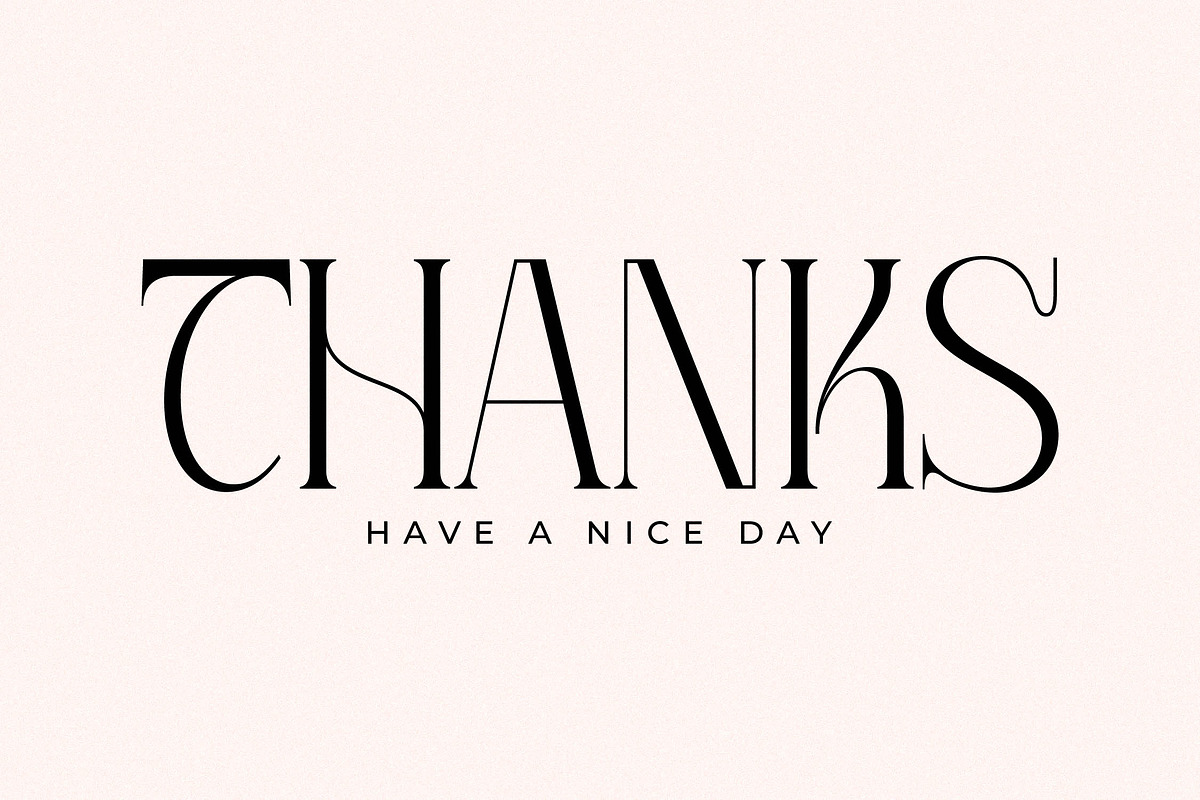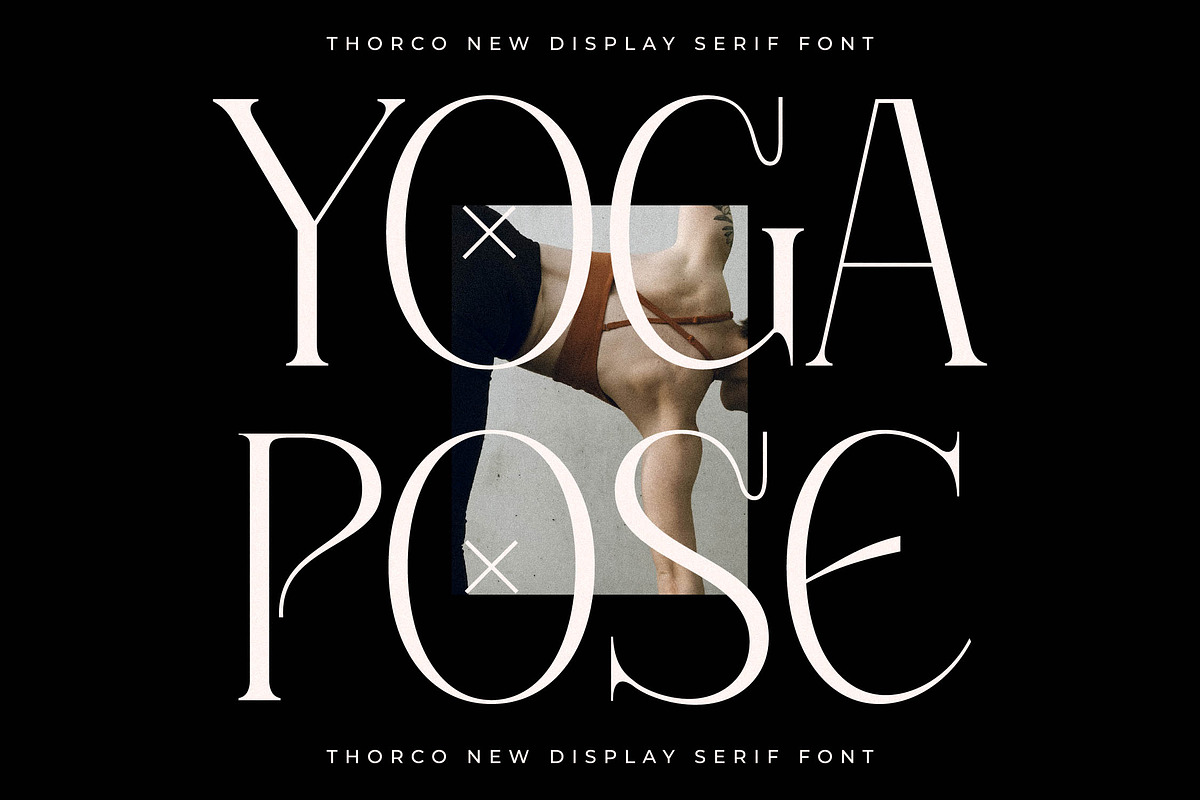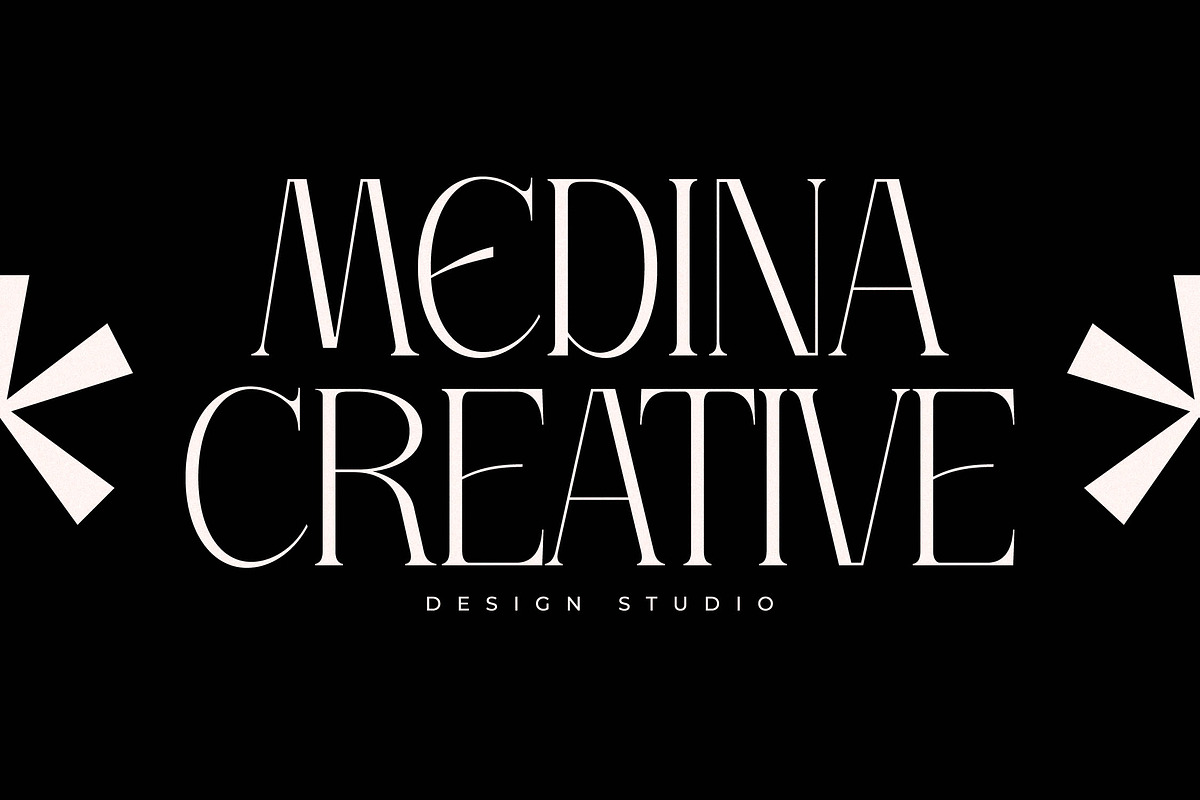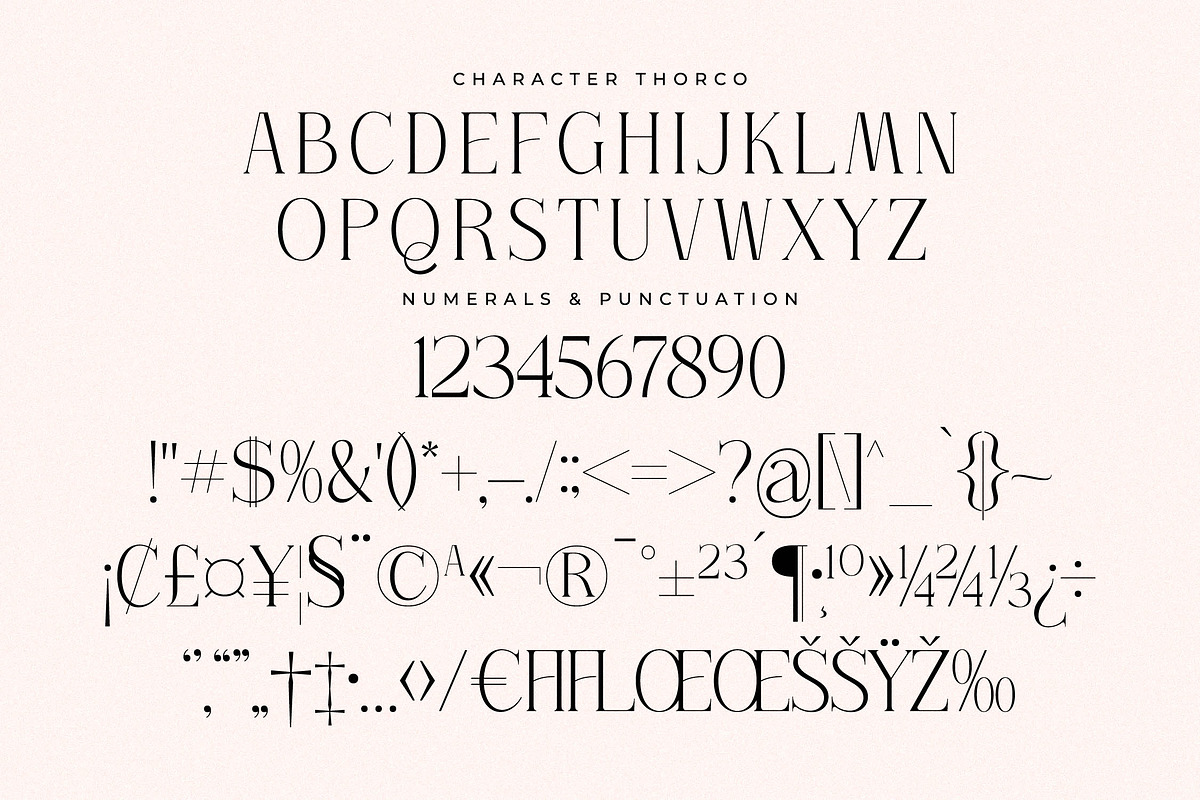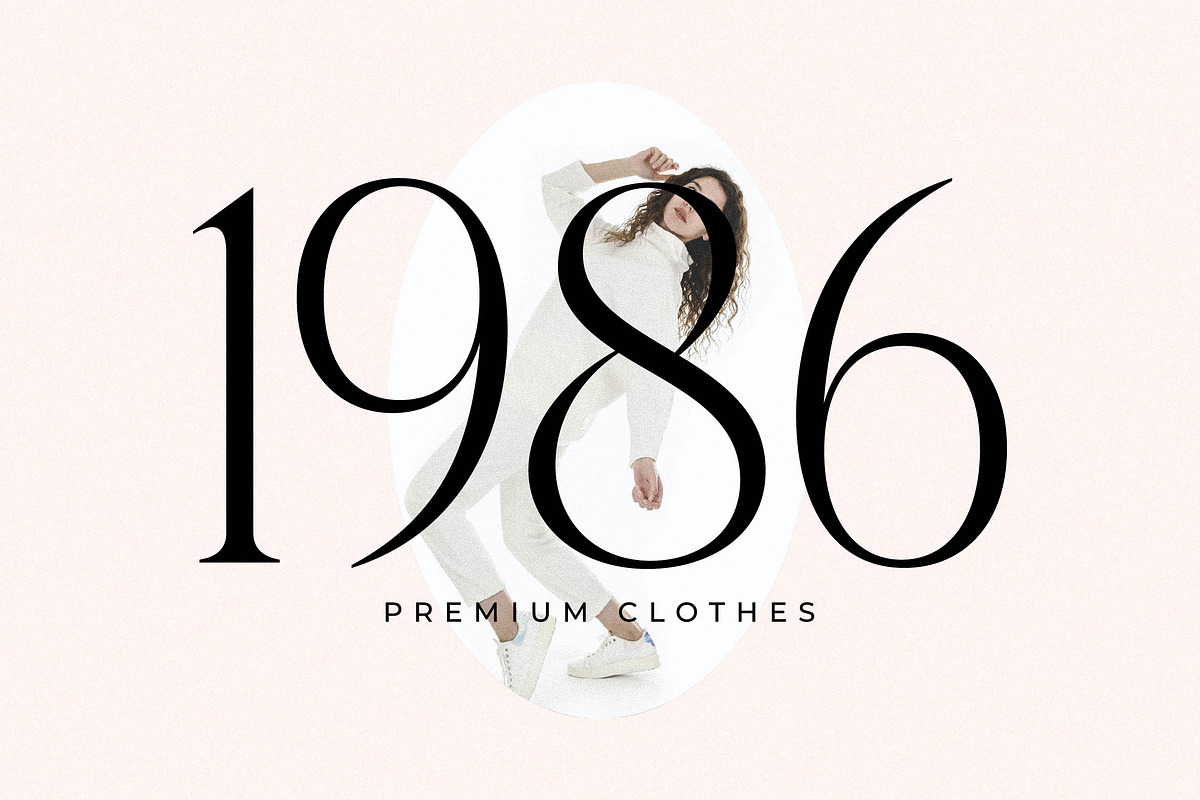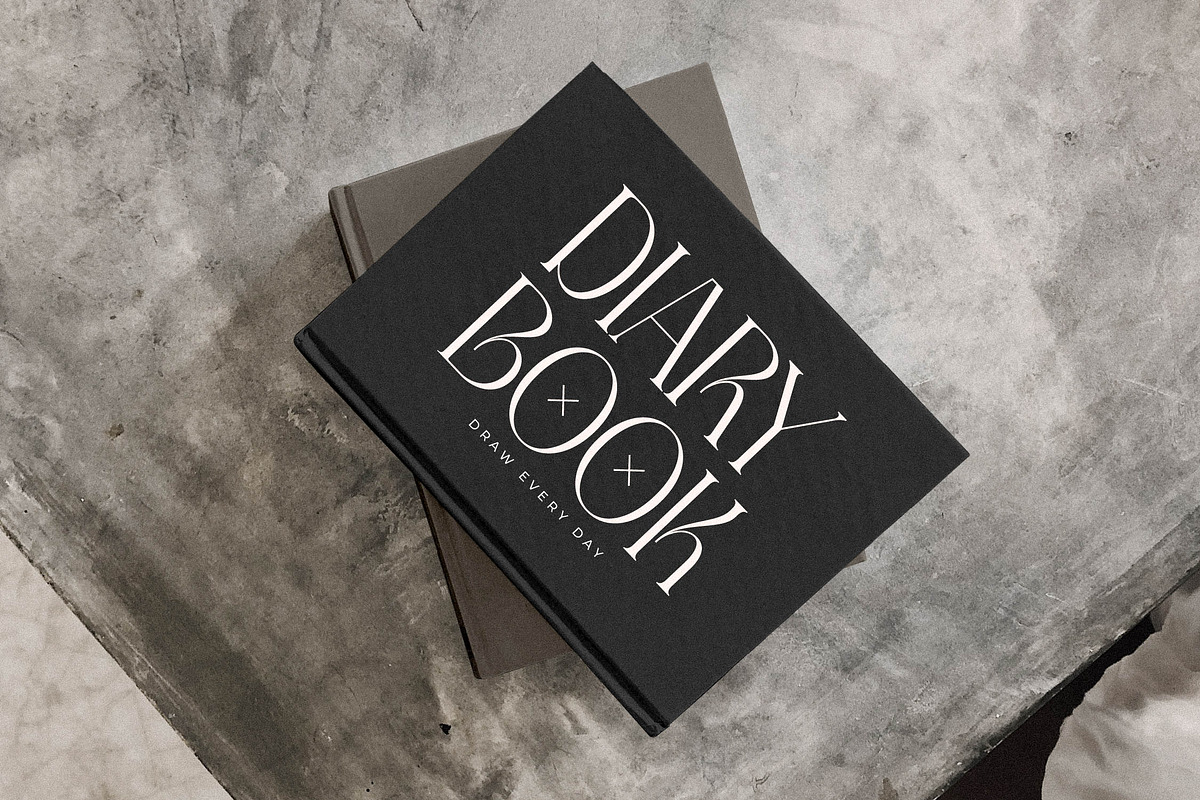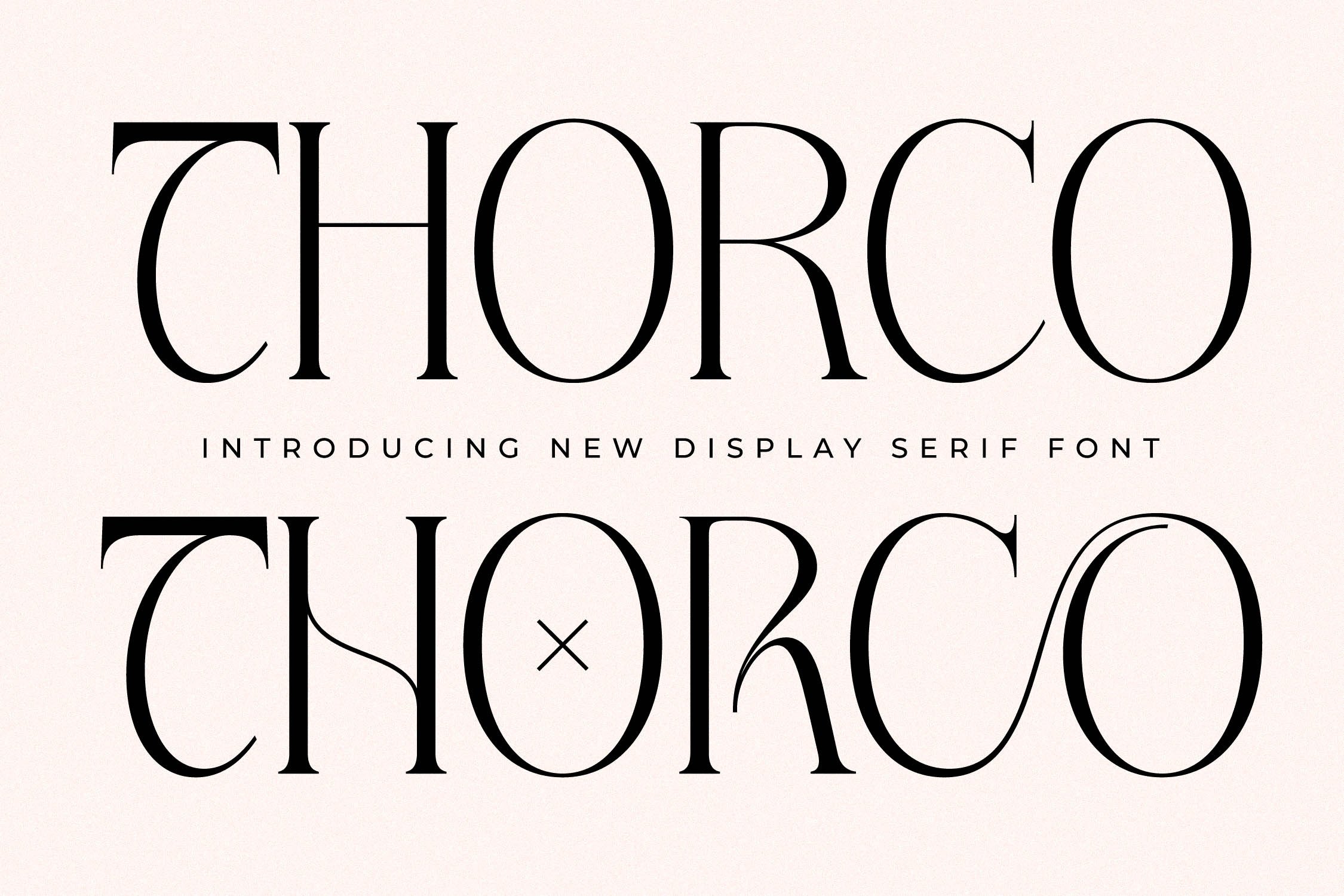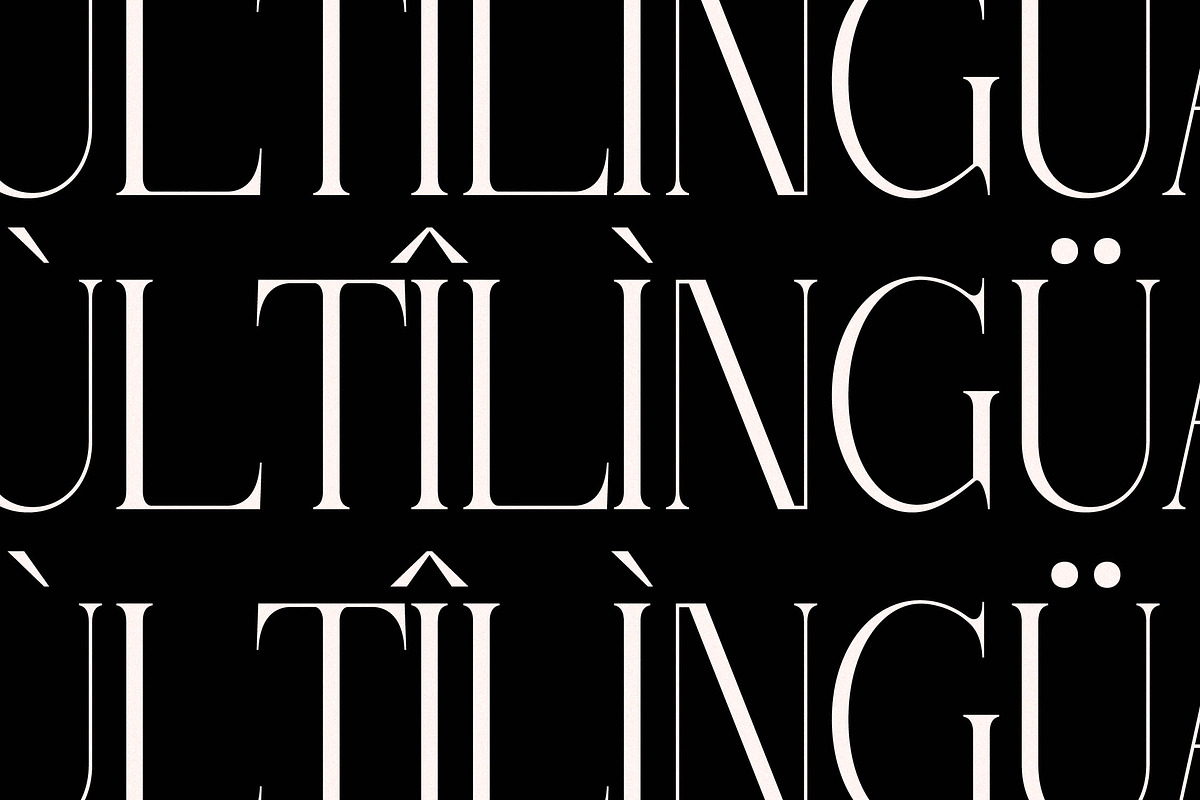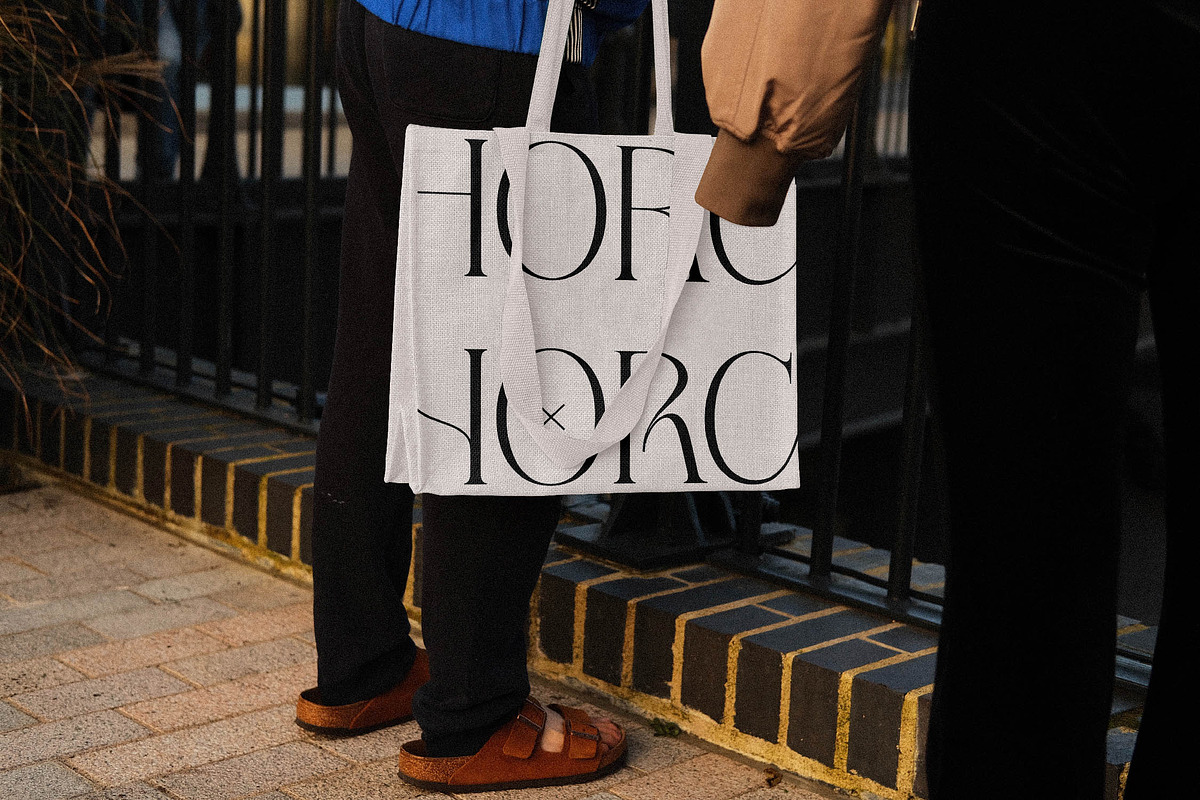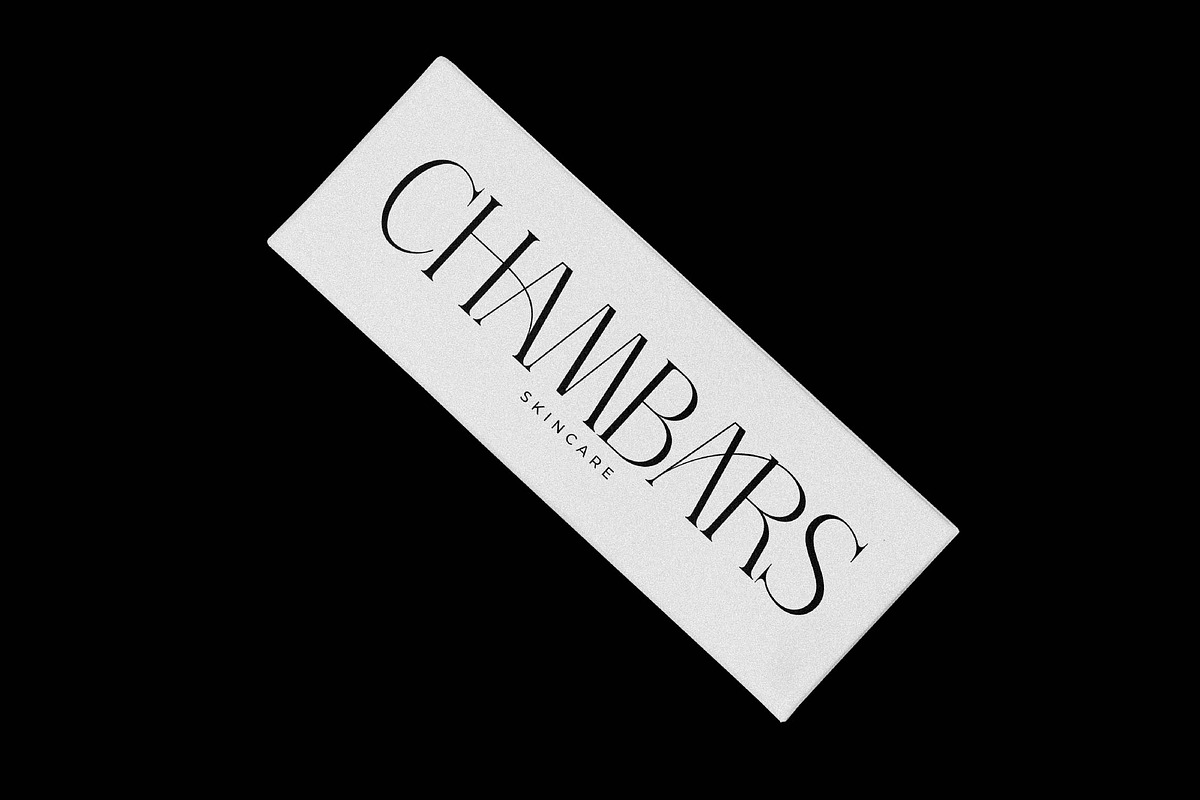
Thorco New Display Serif Font
Proudly present Thorco Typeface , created by Storytype, A serif modern and classic typeface that has own unique style & modern look. This typeface is perfect for an elegant & luxury logo, book or movie title design, fashion brand, magazine, clothes, lettering, quotes, and so much more.